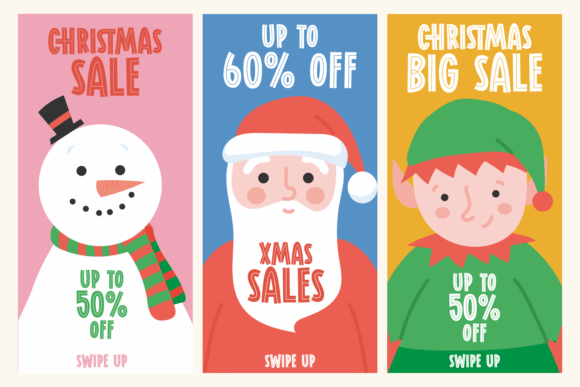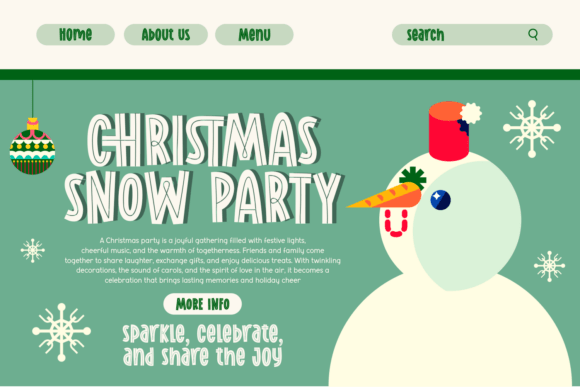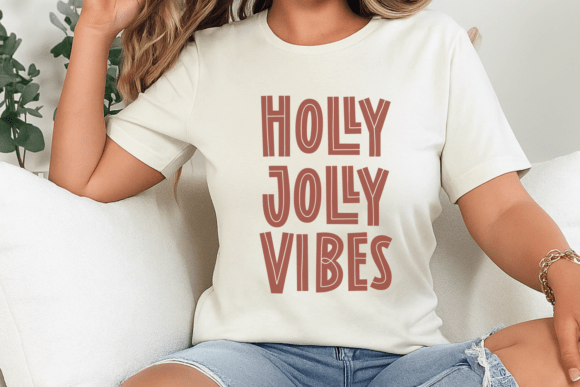
Hollyline Christmas Font
Bring the holiday spirit to life with Hollyline Christmas, a cute and playful mid-line font made especially for the festive season! With its fun letterforms and cheerful vibes, this font is perfect for adding warmth and charm to all your Christmas designs.
With its unique holiday touch, Hollyline Christmas will make your projects stand out and spread joy all season long.